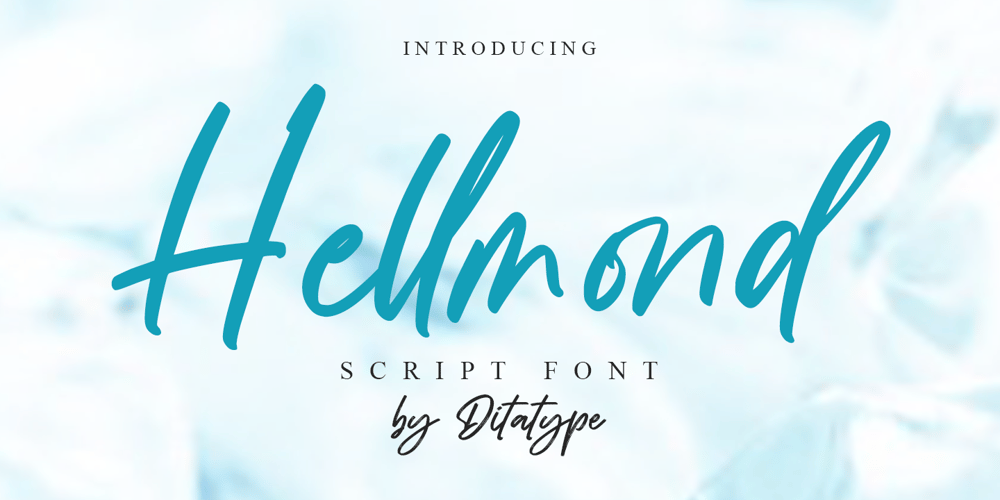
Hellmond
Hellmond font
Hellmond Font Family was designed by Donis Miftahudin and published by Ditatype. Hellmond contains 1 styles and family package options. Hellmond is a natural handwritten font. It brings a modern and beautiful typeface. Made for any professional project branding. It is the best for logos, branding, and quotes.Includes:Hellmond (OTF)Features: Beautiful Ligatures Multilingual Support PUA Encoded Numerals and Punctuation Thank you for downloading premium fonts from Dita Type